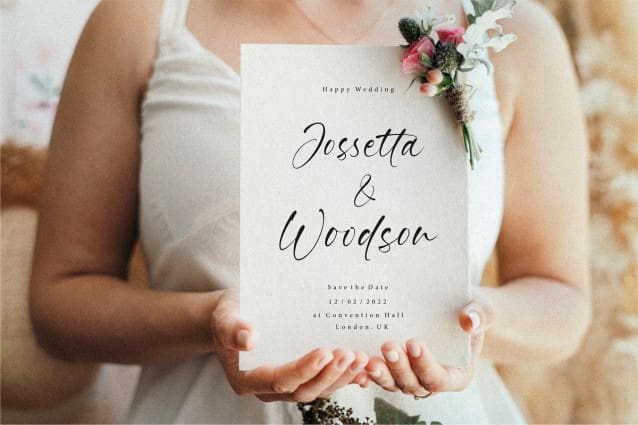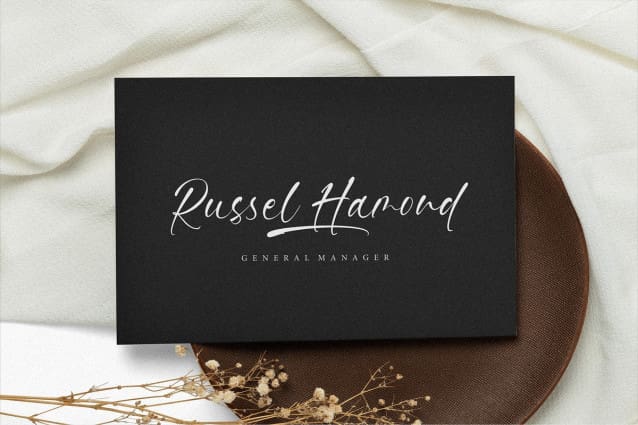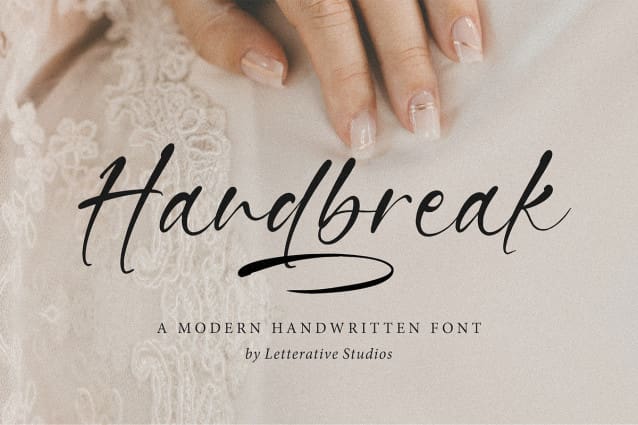
Handbreak Script Font
Handbreak Script Font is a Modern Handwritten Font. Whether you’re using it for crafts, digital design, presentations, or making greeting cards, this font has the potential to become your favorite go-to font, no matter the occasion!